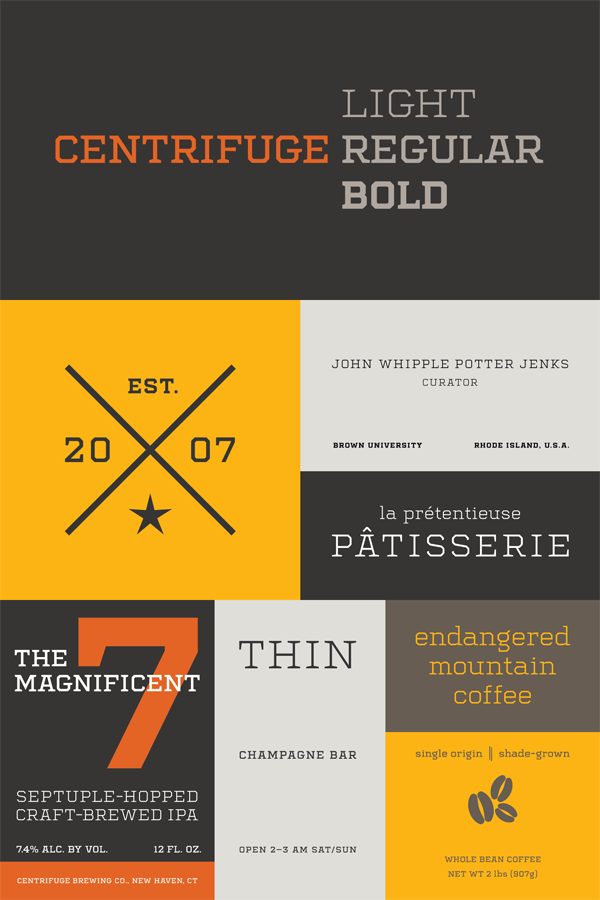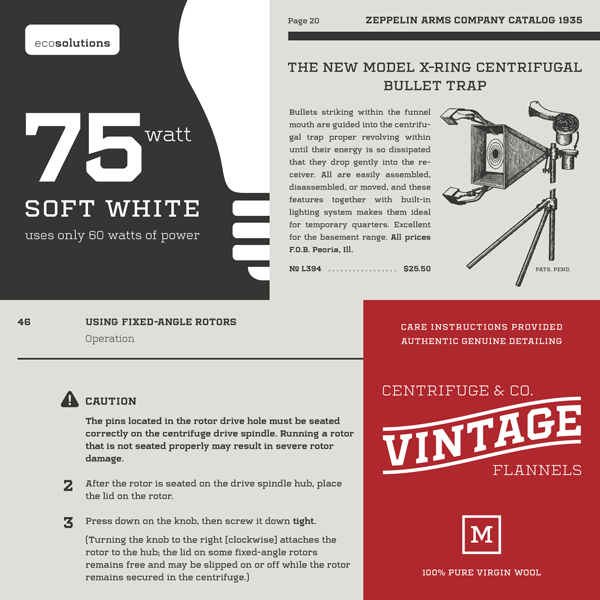
Centrifuge font family, a geometric typeface that draws inspiration from the industrial-chic of the 19th century.
The Centrifuge font family is the second release from Ohio-based illustrator, graphic and typeface designer, Jesse Ewing and his foundry, Midwest Type. The typeface is based on soft geometric shapes, wedge serifs, and sharply-angled terminals. Its edgy look draws inspiration from the industrial-chic of the 19th century and manufacturer badges on old laboratory equipment.
Centrifuge is a geometric and versatile font family that can appear anywhere from formal signage to elegant design. You can use this typeface for headlines or short sections of text.